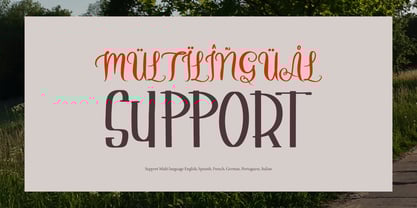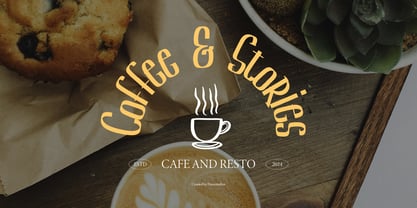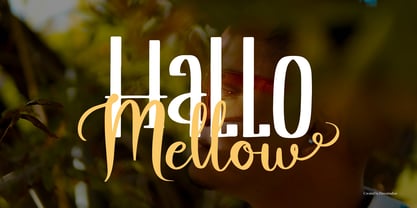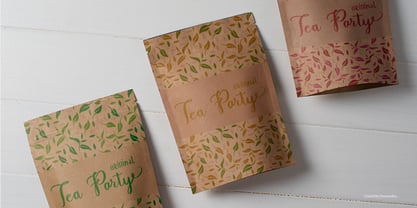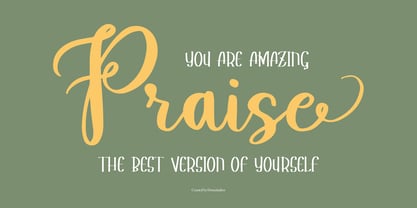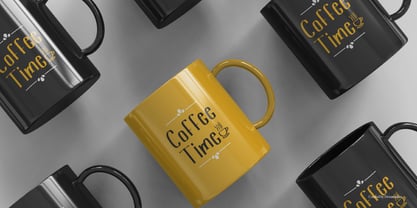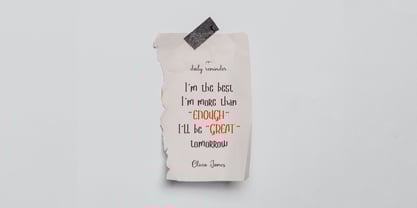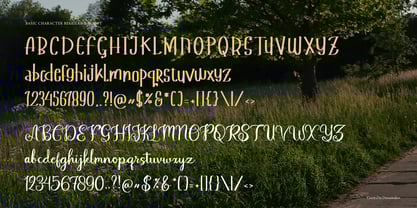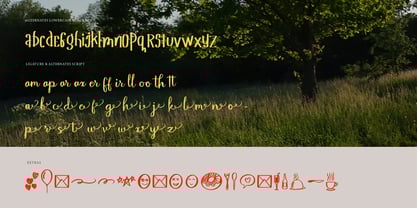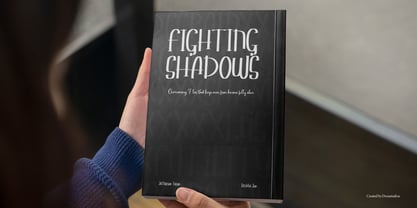
Sterling Behavior
by Denustudio
The Sterling Behavior Font Family was designed by Dede Nugraha and published by Denustudio. Sterling Behavior contains 1 styles. More about this family
Sterling Behavior | Handwritten Font, from Denustudios, suitable for any projects such as: logos, branding projects, homeware designs, product packaging, mugs, quotes, posters, shopping bags, t-shirts, book covers, name card, invitation cards, greeting cards, label, photography, watermark, special events, and all your other lovely projects that need a Handwritten Font taste.
• Regular and Italic
• Standard glyphs
• Alternate and Ligature
• Fonts include multilingual support